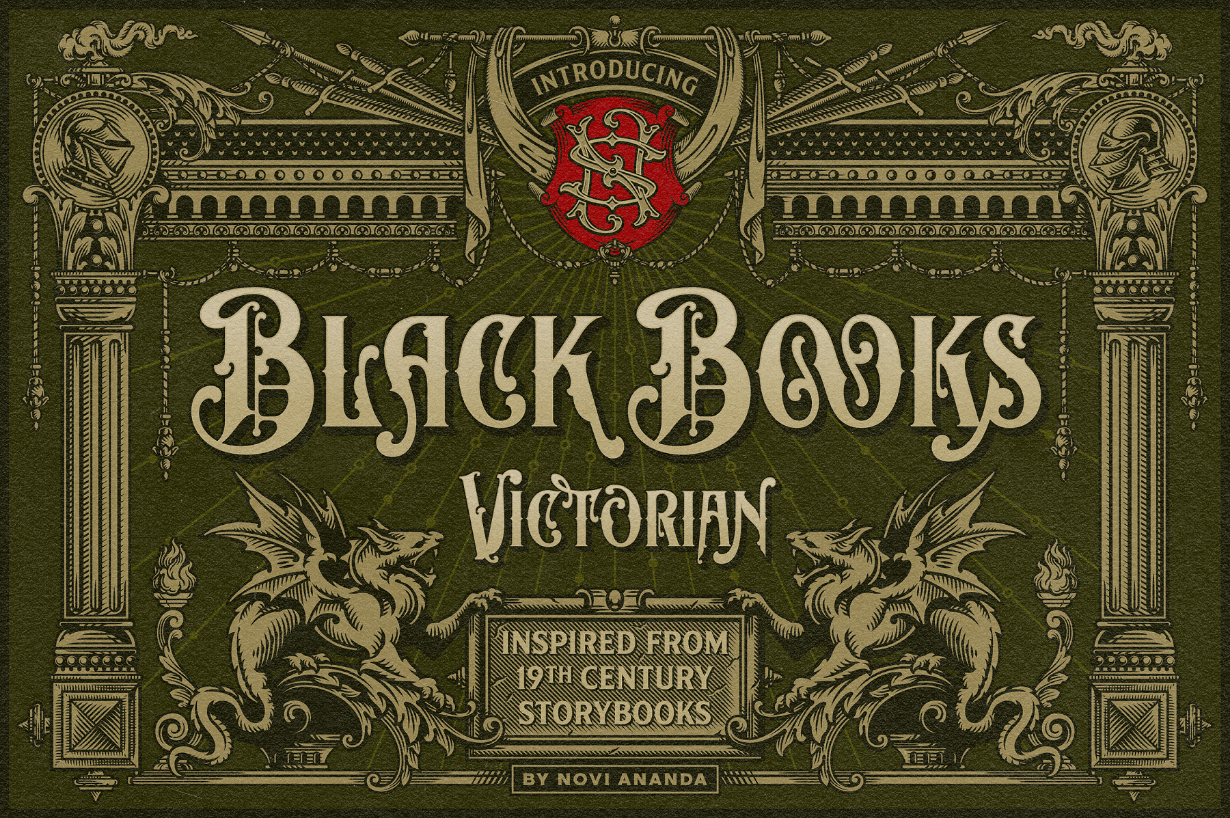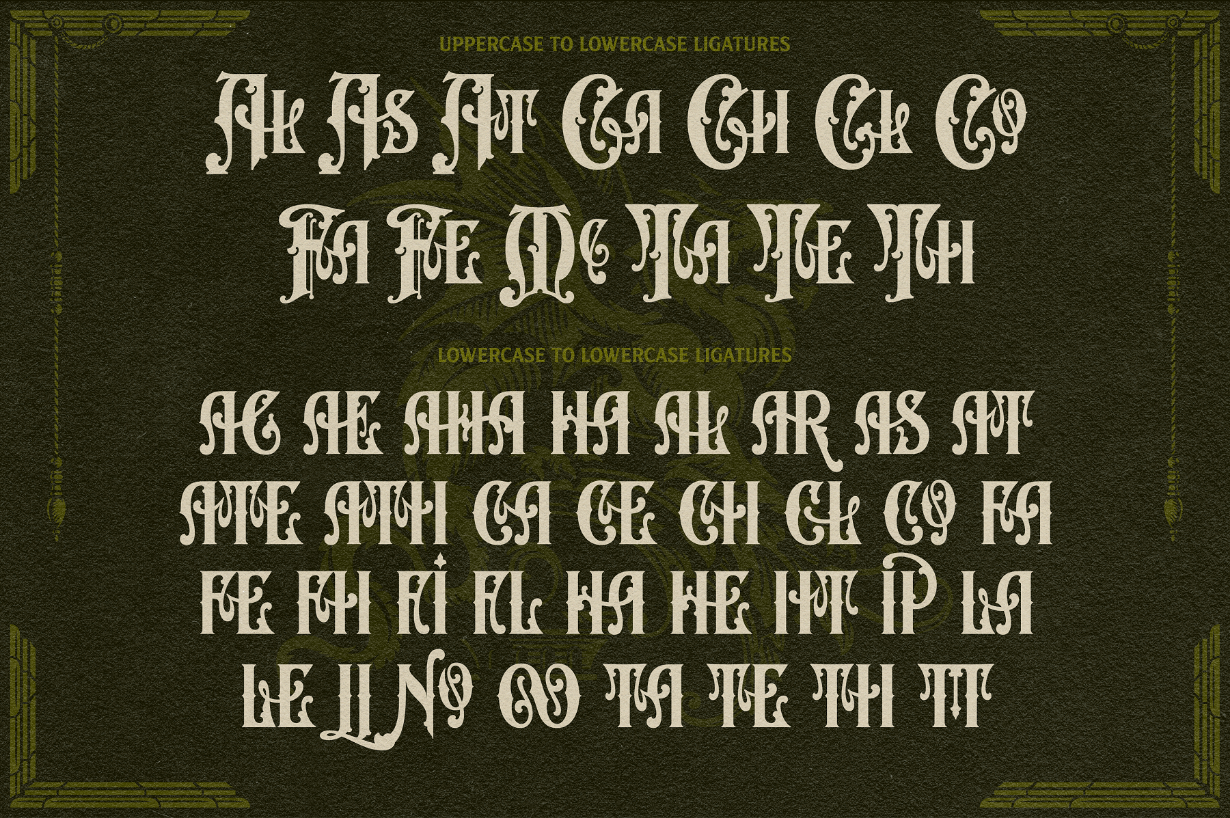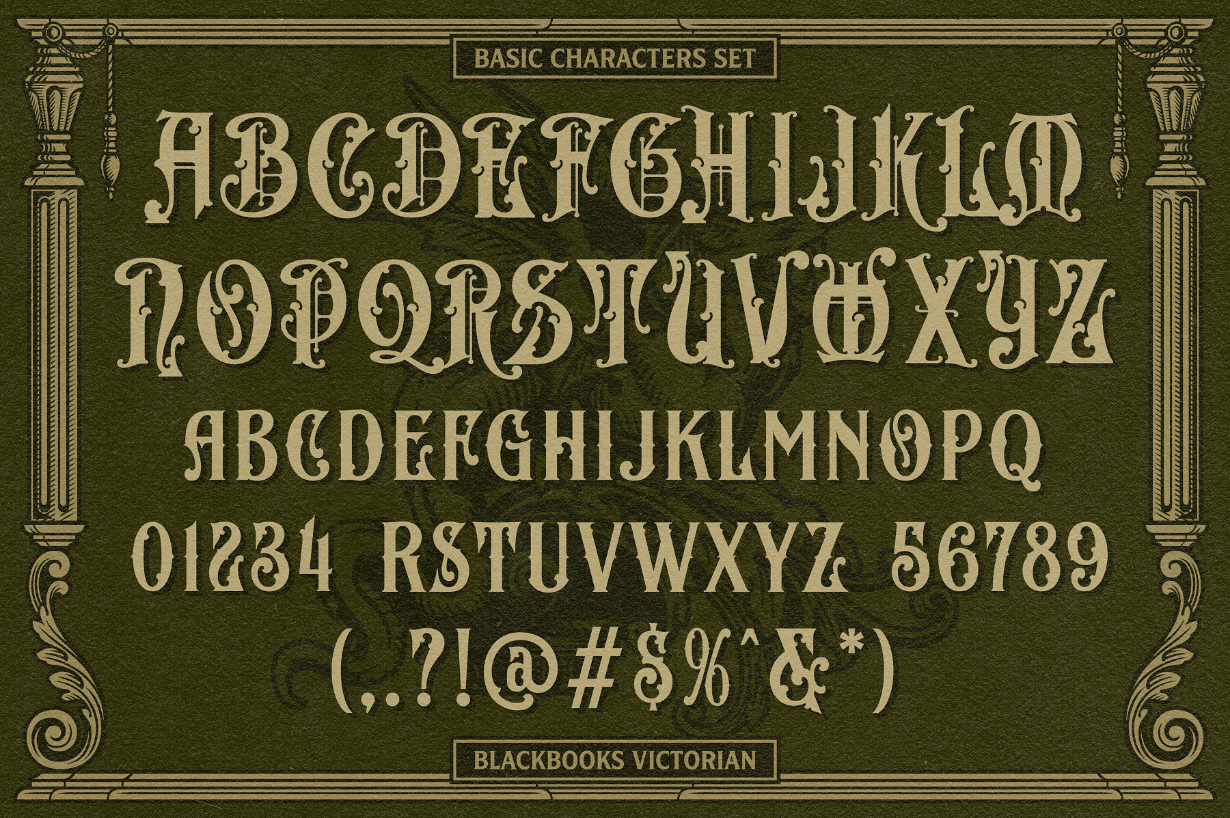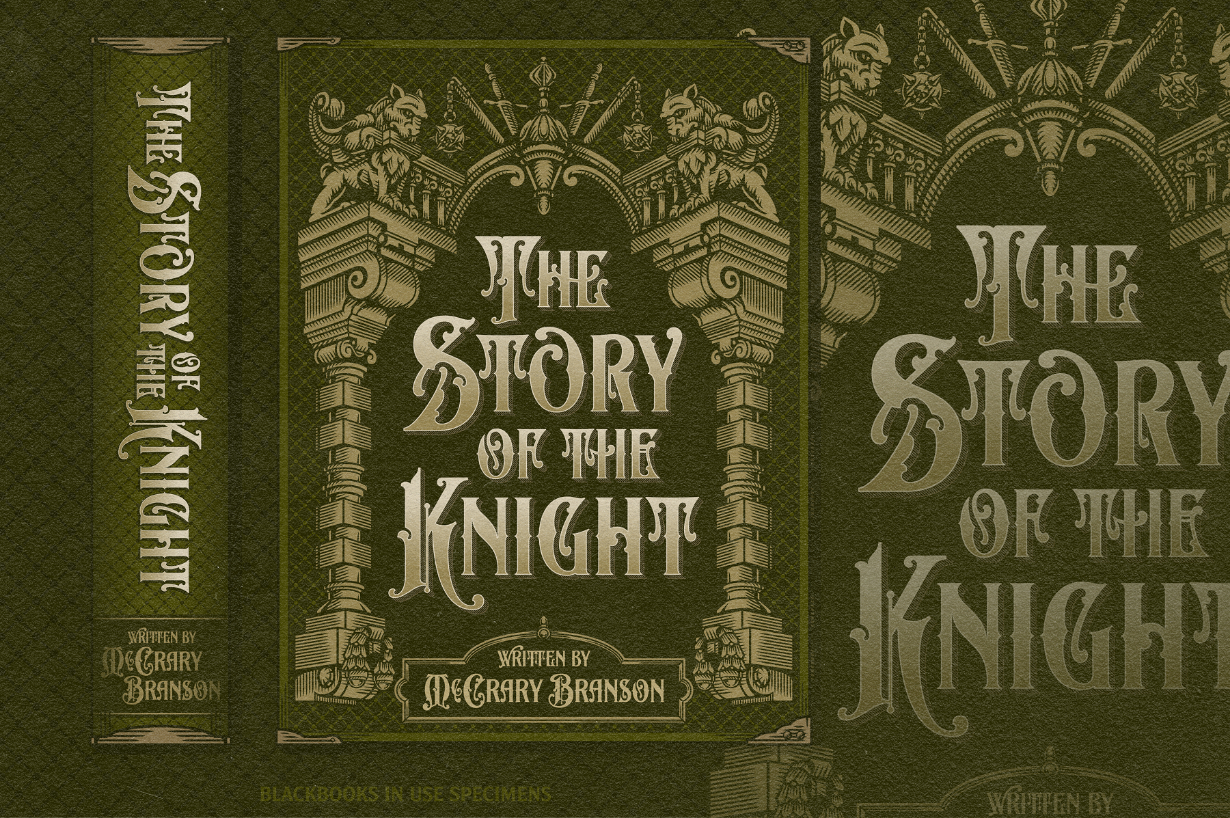
Black Books Victorian Font
About Black Books Victorian Font
Black Books Victorian is a spectacular blackletter font. It has a unique style and it will look great on logos, posters, headlines, packaging, tattoos, clothing, and much more!